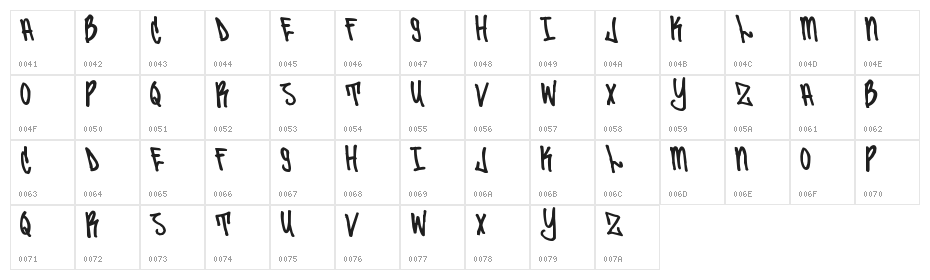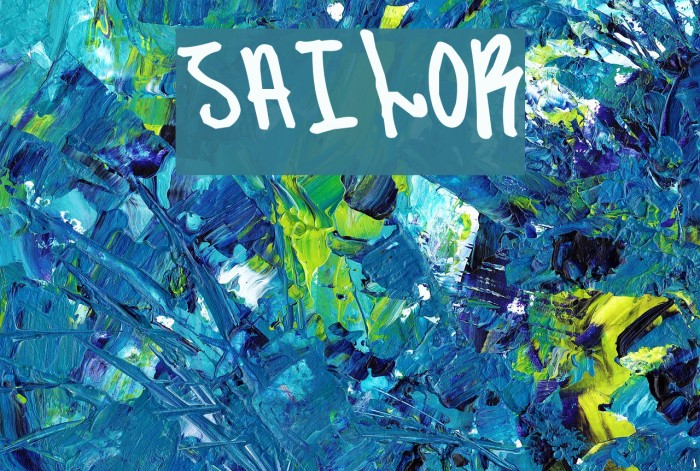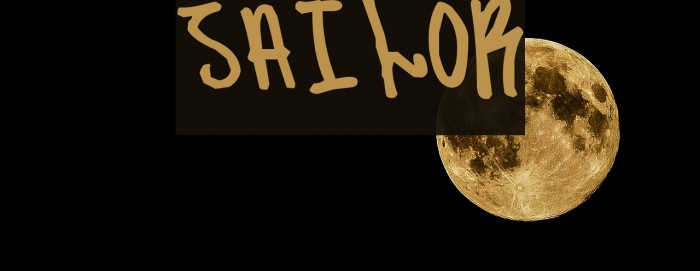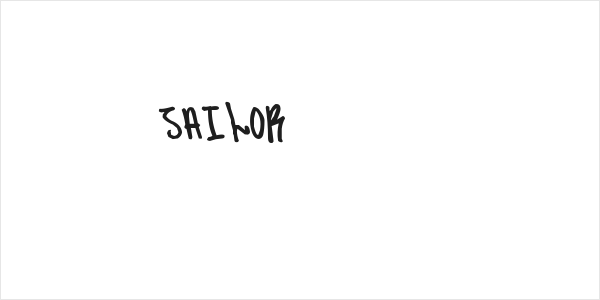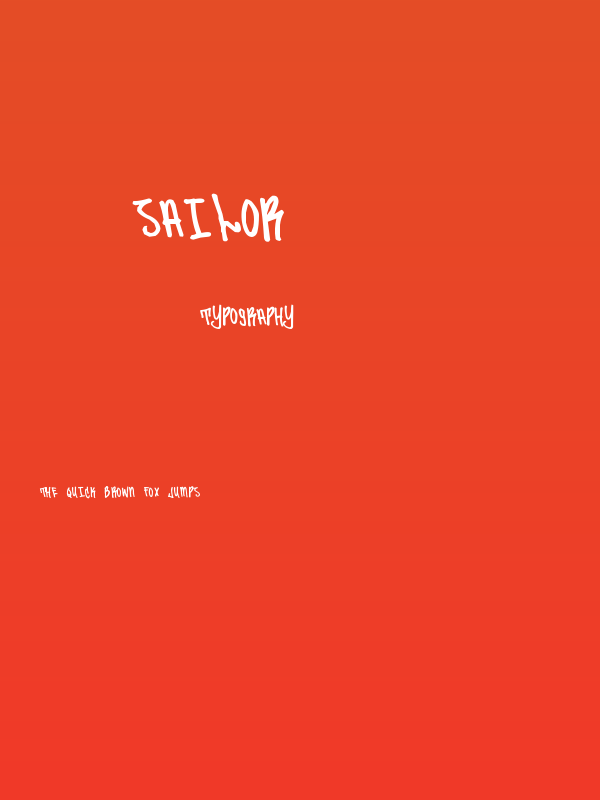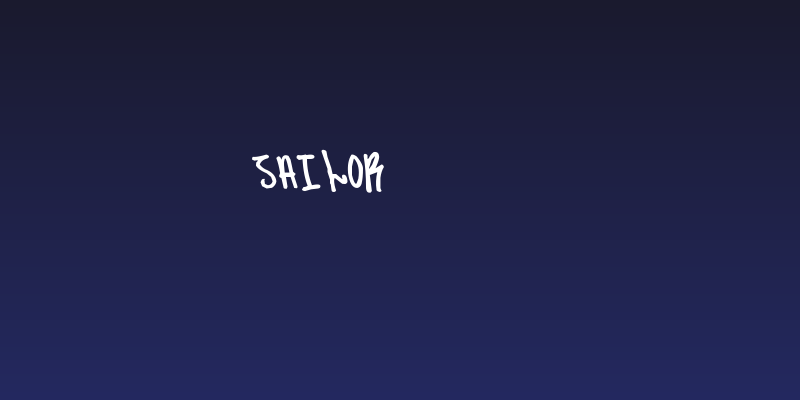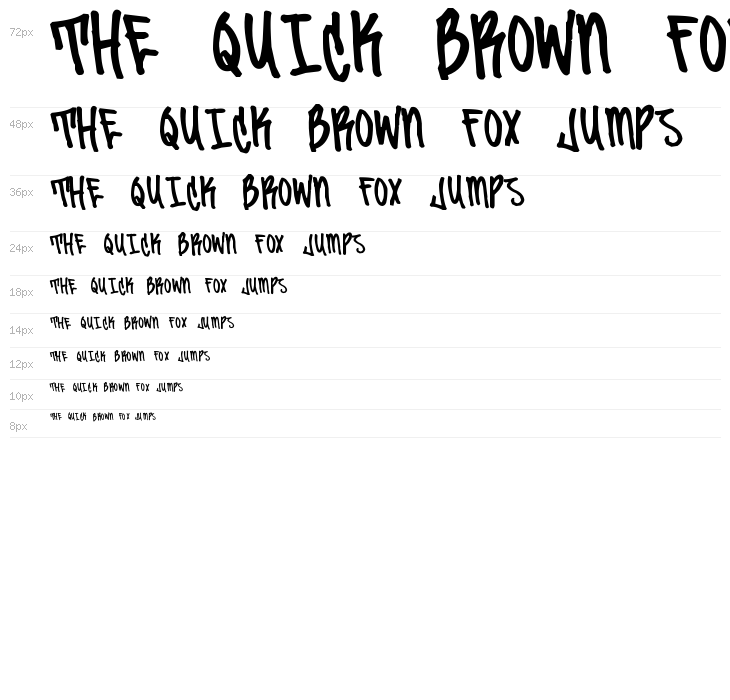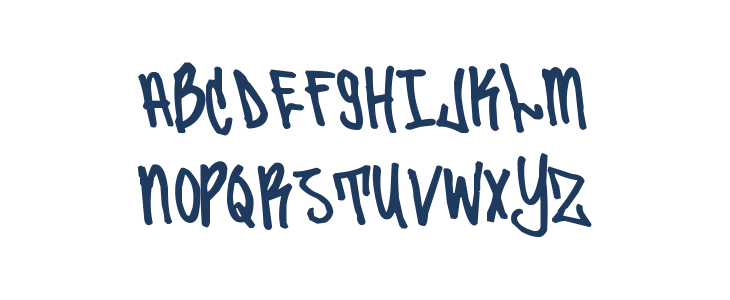
Sailor '87 Font
Sailor '87 Description
This font features a bold and playful handwritten style, characterized by its irregular and dynamic letterforms. The strokes are thick and uneven, giving it a casual and energetic appearance. The letters have a slightly slanted orientation, adding to the informal and spontaneous feel. The uppercase and lowercase letters maintain a consistent style, with unique and quirky shapes that enhance its distinctive look. The font's overall design is reminiscent of graffiti or street art, making it suitable for projects that require a youthful and vibrant touch.
| Proposed Projects | Ideal for posters, album covers, streetwear branding, and creative social media graphics. |